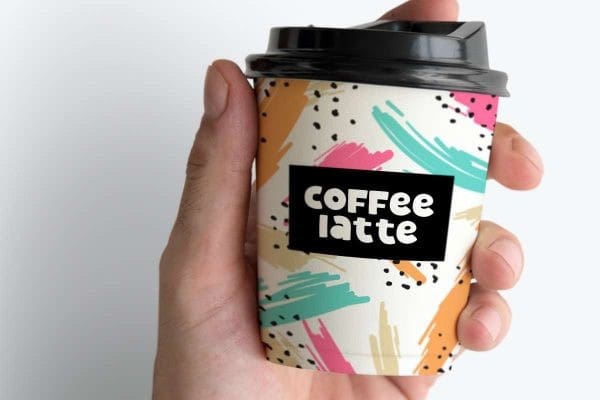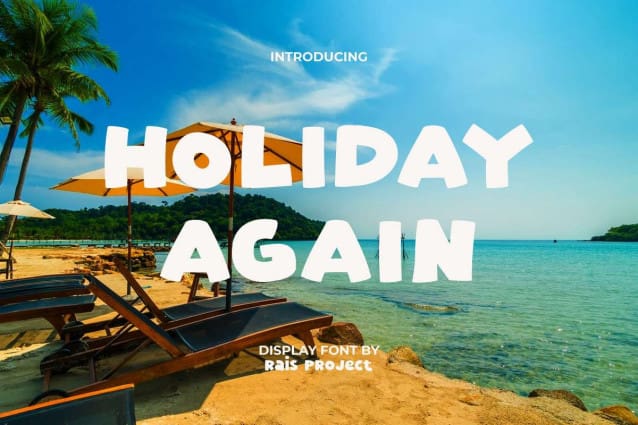
Holiday Again Font
Holiday Again Font is a stylish bold display font with fun playful styles, that which will make your designs attractive! Such as brand logo, business card, cover, invitation, custom design, label, menu, poster, product packaging, quote, signage, website, etc.
Holiday Again Font includes a full set of Uppercase and Lowercase Letters, Numerals, and large range of punctuation. This funny style font will be suitable for various industries, such as accessories, café, event organizer, fashion, festival, interior design, movie, music, photography, printing, publishing, travel agent, etc.